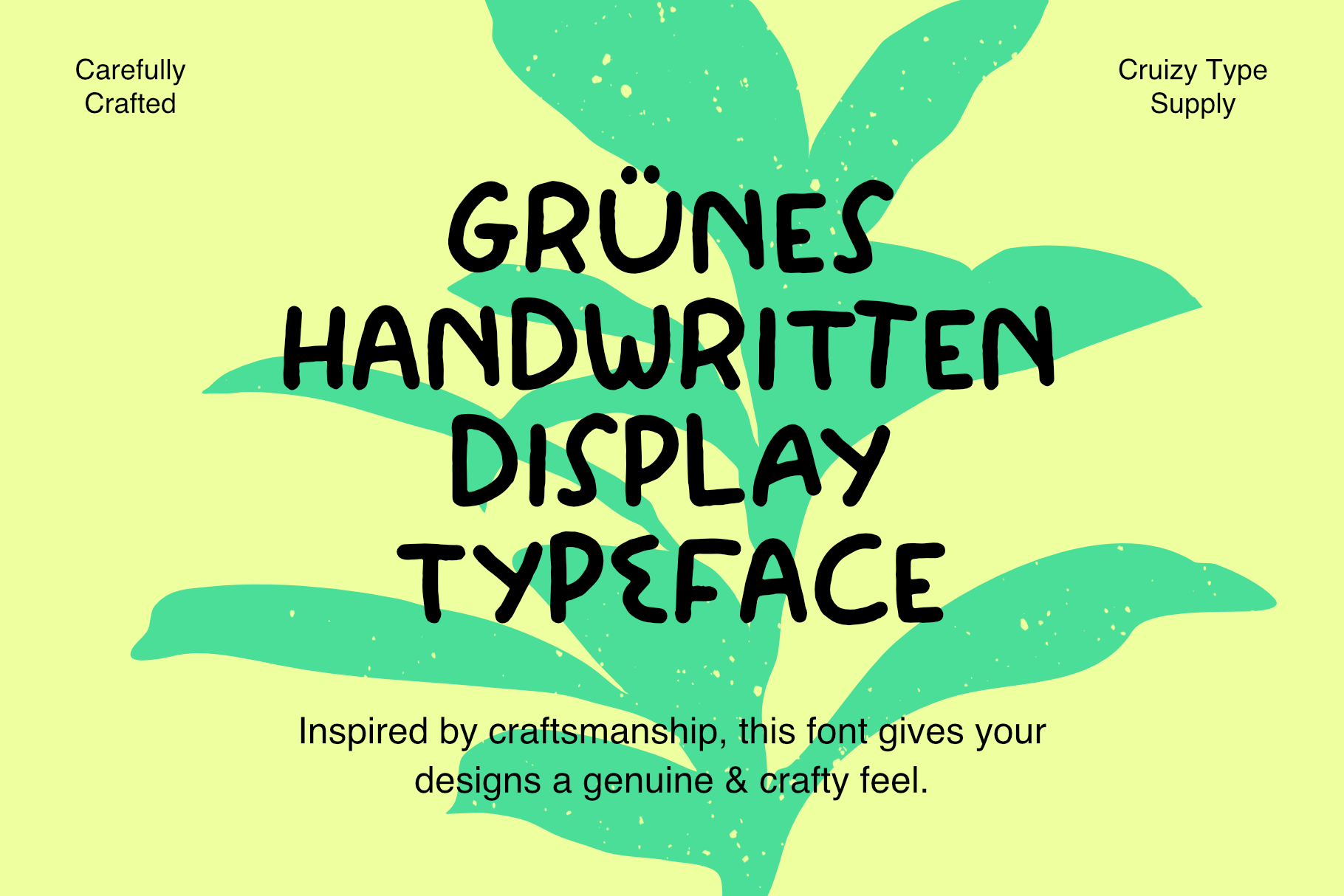
Grunes - Handwritten Display Font
Introducing Grunes, a charming handwritten font that brings the warmth of handcrafted design to your projects. With its flowing, organic strokes and subtle imperfections, this font captures the essence of artisan craftsmanship, perfect for adding a personal touch to logos, invitations, and creative branding."
Feature : All-Caps Character Numbers Symbol, Punctuation & Currency Ligature Stylistic Alternate